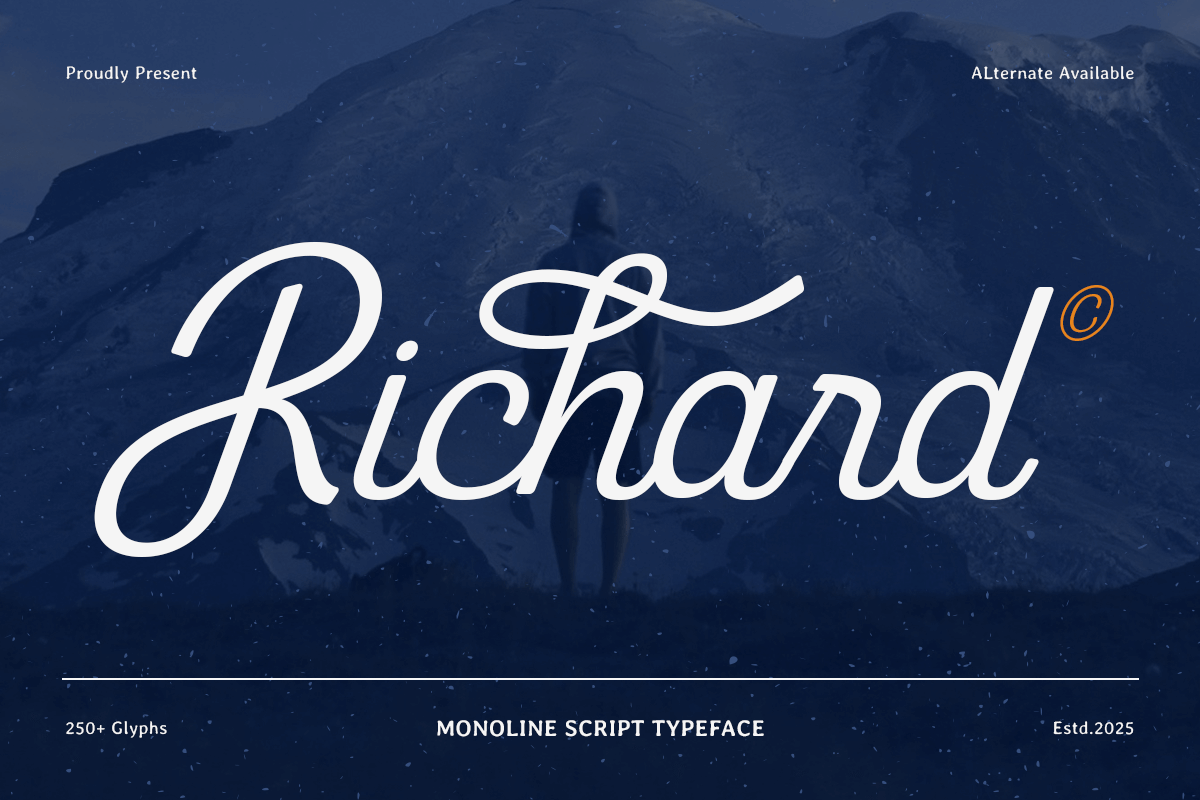
Richard
-Monoline Script Typeface FontRichard - Monoline Script Typeface Font
Richard is a monoline script typeface that brings elegance and simplicity to your design projects. Its smooth, continuous lines and stylish letterforms make it ideal for branding, logos, and elegant design applications that need a personal touch.
The font combines the charm of script typography with a sleek monoline structure, giving it a modern and refined look. Whether you're working on fashion branding, creative logos, or high-end editorial designs, Richard delivers a sophisticated, timeless style.
Richard – Monoline Script Typeface Features
Elegant monoline script with clean, continuous strokes
Ideal for branding, logos, and creative design
Modern, sleek design with a refined script feel
OpenType features for enhanced design flexibility